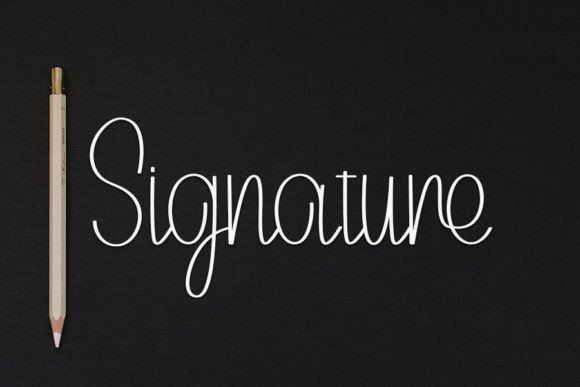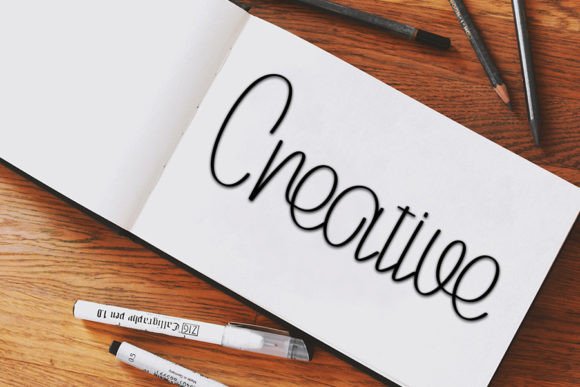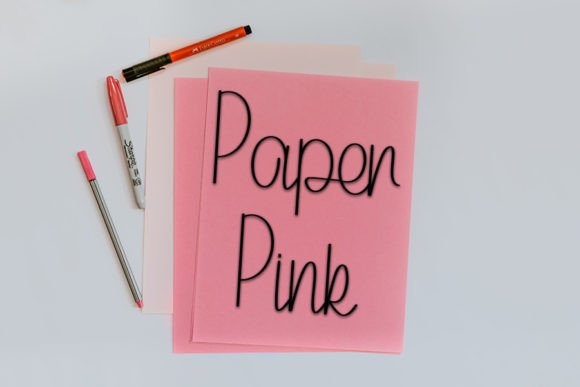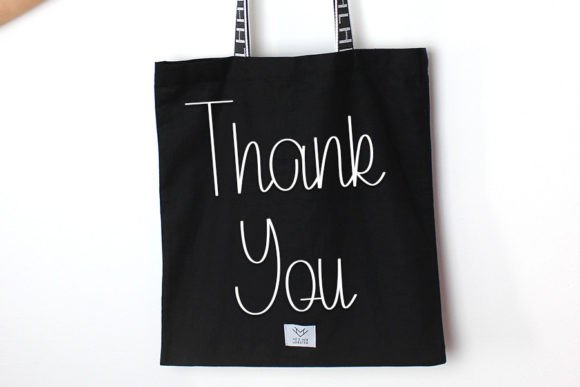
About Calligraphy Font
Calligraphy Font is a neat and beautiful handwritten typeface that adds an elegant and timeless touch to your creative projects. Its distinct and graceful style makes it perfect for logos, invitations, branding, and various design applications.
Elegant and Timeless Design
This font features smooth, flowing strokes and well-balanced letterforms that blend clarity with sophistication. Calligraphy’s elegant appearance suits a wide range of uses, from formal branding to personal stationery. Its timeless look ensures your designs remain stylish and relevant.
Ideal Uses for Calligraphy Font
Calligraphy works wonderfully for:
Wedding invitations and save-the-date cards
Logos and brand identities
Greeting cards and thank-you notes
Editorial layouts and magazine designs
Social media graphics and digital marketing materials
Its elegant style enhances any design with refinement.
Neat and graceful handwritten letterforms
Distinctive and timeless style
Add Charm and Sophistication to Your Designs
Typography sets the mood and emotion of your project. Calligraphy adds warmth, elegance, and personality, making your work feel inviting and polished.